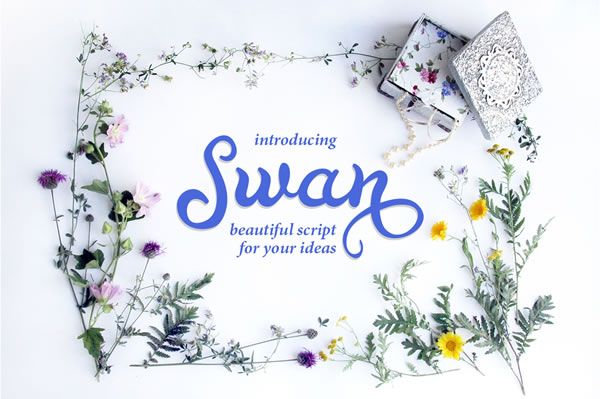
Swan Font
Introducing Swan Font - The Epitome of Elegance for Your Reference Letter
Embark on an enchanting journey with the Swan Font, a calligraphy-inspired handwritten masterpiece crafted by Etewut. This exquisite font exudes a timeless charm that will transform your reference letters into works of art. Swan's fluid strokes dance across the page, captivating readers with their grace and beauty.
With Swan Font, you can bid farewell to mundane and forgettable reference letters. Its unique ligatures and stunning swashes add a touch of artistry that makes your words come alive. Let your recommendations shine with Swan's elegant flourishes, leaving a lasting impression on potential employers or clients.
Elevate your reference letters to new heights of eloquence with Swan Font. Its enchanting allure will capture attention and leave an unforgettable mark. Embrace the beauty of handwritten elegance and watch as your words blossom into masterpieces.